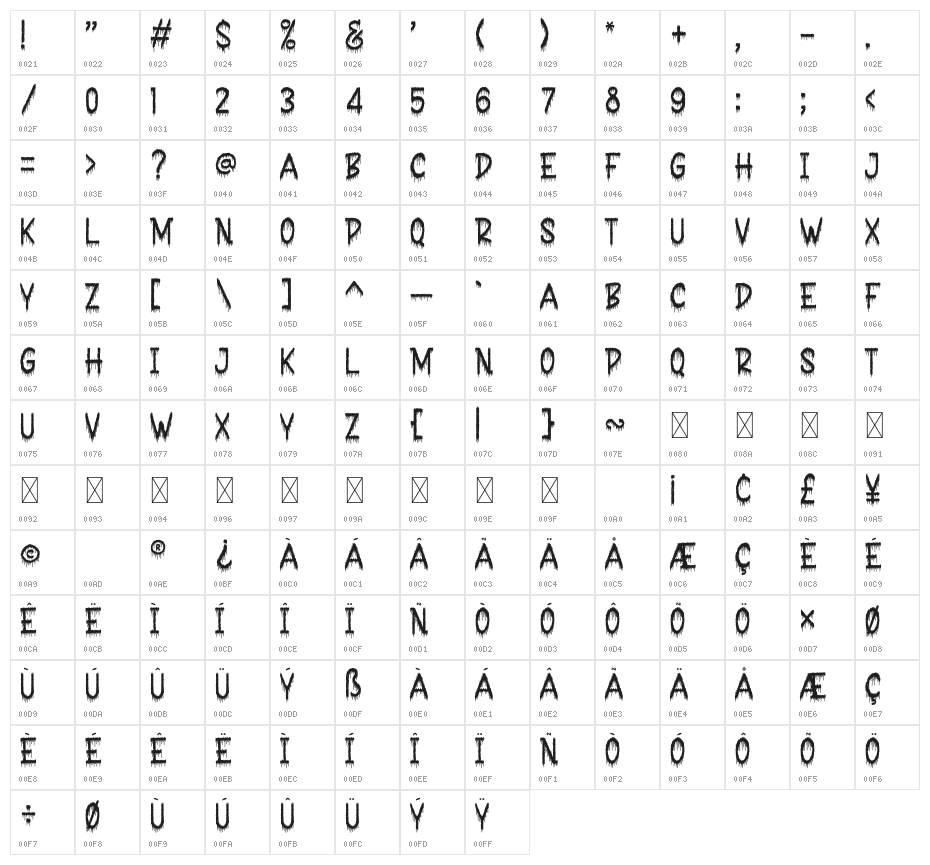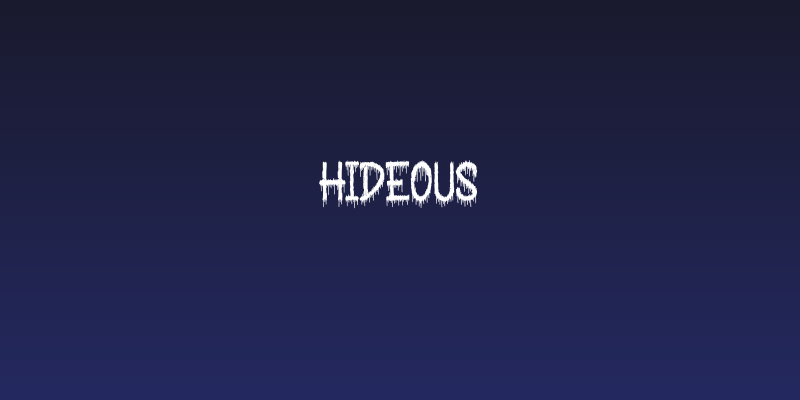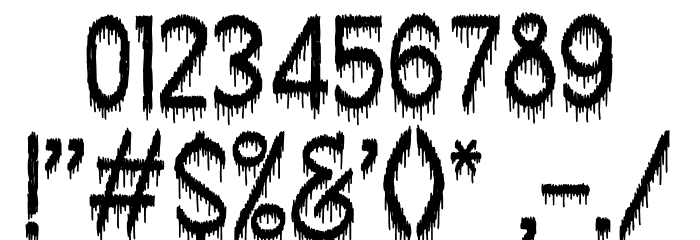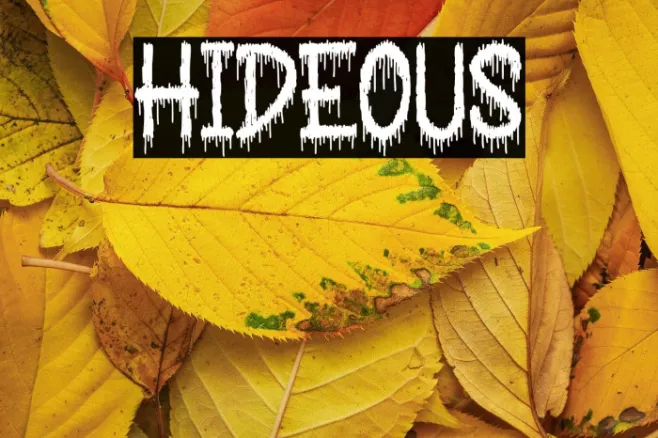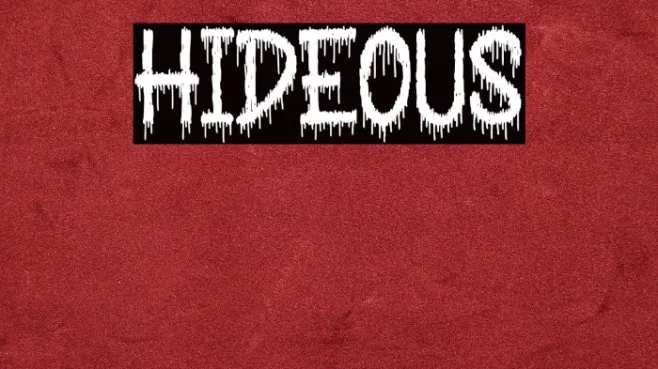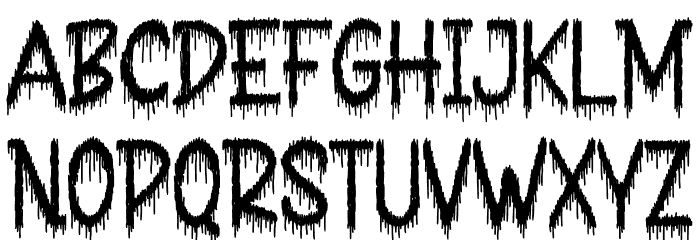
Hideous Font
Hideous Description
This font features a unique and eerie design, characterized by its dripping, goo-like appearance. The letters are bold and slightly irregular, giving them a handmade, organic feel. The font's style evokes a sense of horror or the supernatural, making it ideal for themes related to Halloween or spooky events. The uppercase and lowercase letters maintain a consistent style, with numbers and special characters also reflecting the same dripping effect. The overall look is both eye-catching and unsettling, perfect for creating a dramatic impact.
| Use Case | Headlines, Posters, Themed Events |
| Proposed Projects | This font is perfect for Halloween party invitations, horror movie posters, haunted house flyers, or any project requiring a spooky, dramatic effect. |